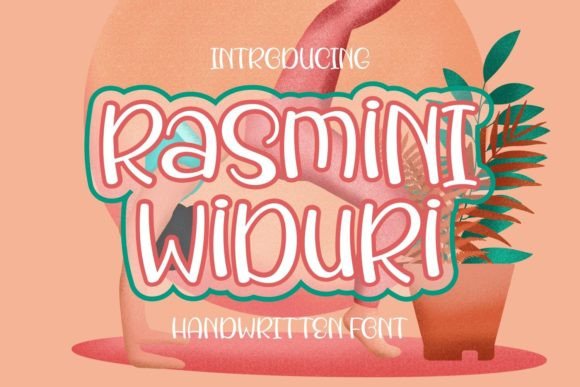
Introducing Rasmini Widuri Font: The Ultimate Handwritten Masterpiece for Joyous Creations!
Immerse yourself in the whimsical world of Rasmini Widuri, a script font that exudes fun and cheerfulness. Its playful curves and charming imperfections will ignite your imagination, making it the perfect choice for a wide range of creative endeavors.
With Rasmini Widuri, you'll effortlessly transform your Cricut Pen projects into whimsical masterpieces. Its smooth flow and dynamic strokes will add a touch of playful elegance to your designs. Whether you're creating heartwarming quotes, adorable games for little ones, captivating titles, or eye-catching brand names, Rasmini Widuri will bring your visions to life with an unmatched sense of joy and creativity.
As you explore the limitless possibilities of this enchanting font, you'll discover its versatility extends far beyond just Cricut Pen projects. Unleash your imagination and let Rasmini Widuri grace your book covers, posters, and any creation that calls for a spark of pure delight. Its friendly nature and universal appeal make it the ideal choice for designs that aim to connect with audiences of all ages.
Embrace the magic of Rasmini Widuri today, and let its joyous spirit infuse your creations with a touch of playful charm. It's the perfect blend of creativity, versatility, and sheer delight, waiting to elevate your projects to new heights of imagination.